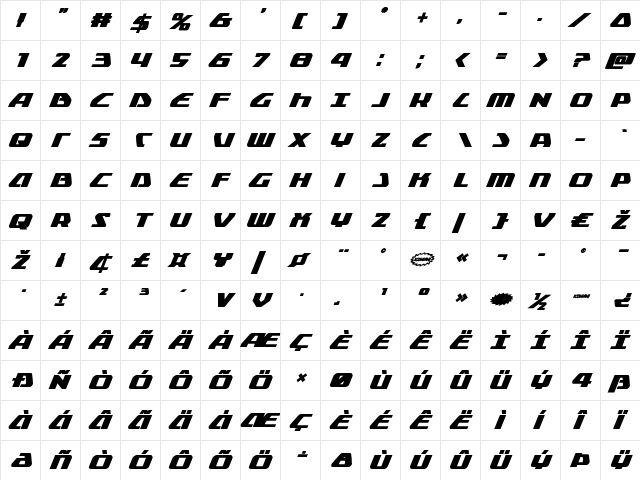
Global Dynamics Bold Italic Bold Italic
Design Context for Global Dynamics Bold Italic Typeface
Global Dynamics Bold Italic is a composed and adaptable typeface that performs quietly and consistently across a wide range of design contexts. Its italic angle brings a sense of urgency and motion to the letterforms. Its bold stroke weight gives it real presence on the page.
Pro Tip: Use Global Dynamics Bold Italic for emphasis, pull quotes, and subheadings where its slanted energy can add rhythm to the layout.